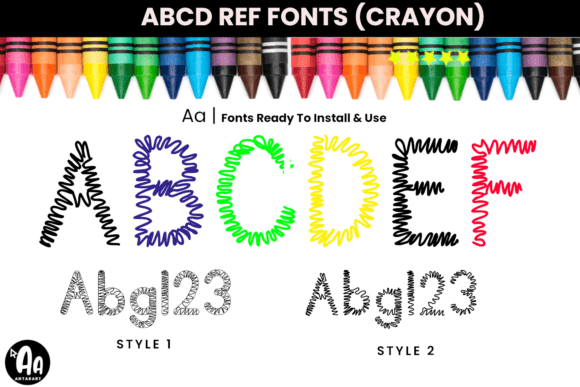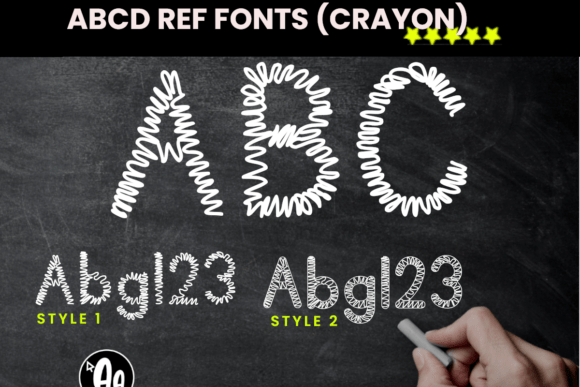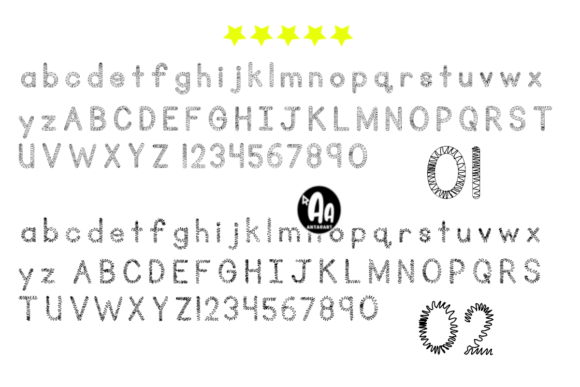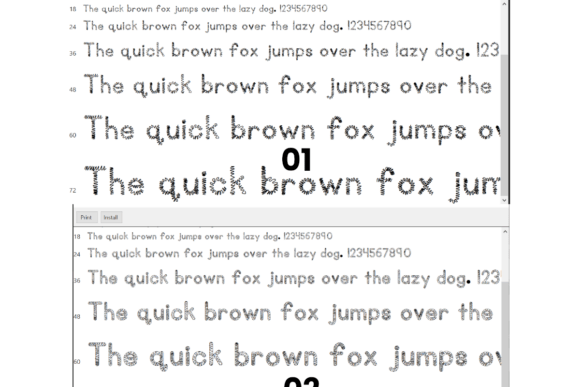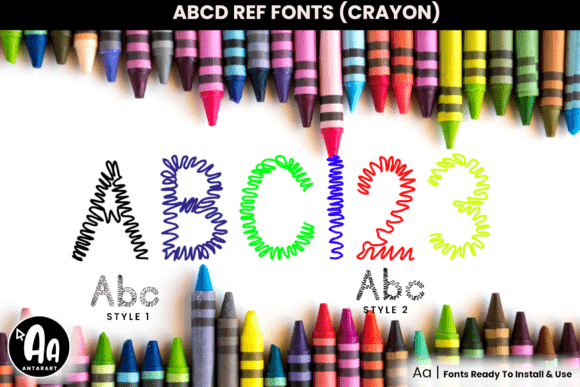
Unleashing Creativity with Abcd Ref Scribble Crayon Font
Have you ever been in the middle of a design project, and suddenly, you just can’t seem to find the right font? I recall a particularly frustrating moment when I was working on a kindergarten curriculum project. My client wanted a font that would make their materials engaging and fun for young learners. After hours of searching, I stumbled upon the Abcd Ref Scribble Crayon Font. It was like a breath of fresh air! The hand-drawn, sketchy crayon texture instantly captured the playful essence I was looking for. In this article, we’ll dive into the world of this delightful font and explore its features, uses, and alternatives.
A Personal Review of Abcd Ref Scribble Crayon Font
- ✨ The font’s hand-drawn, crayon-like texture adds a touch of whimsy and playfulness to any design project.
- ✅ It’s perfect for early learners, making it an excellent choice for educational resources, such as worksheets, name tags, and bulletin boards.
- 🎉 The Neon-style lettering gives it a fun, eye-catching vibe that’s sure to grab attention.
- 🖌️ The font’s versatility allows it to be used in various design projects, from digital materials to print resources.
While the Abcd Ref Scribble Crayon Font is an excellent choice for many projects, there are a few things to consider:
- ⚠️ The font’s hand-drawn nature means it may not be suitable for very formal or professional projects.
- 🤔 Some users may find the font’s texture a bit too distressed or rough for their taste.
The Story Behind Abcd Ref Scribble Crayon Font
The Abcd Ref Scribble Crayon Font was designed with early learners in mind. The creator wanted to craft a font that would bring a touch of playfulness and creativity to educational resources. Inspired by the colorful world of crayons and doodles, this font is perfect for anyone looking to add a bit of whimsy to their designs.
Q: What type of projects is the Abcd Ref Scribble Crayon Font best suited for?
A: This font is ideal for educational resources, such as worksheets, name tags, and bulletin boards, as well as any project that requires a playful, creative touch.